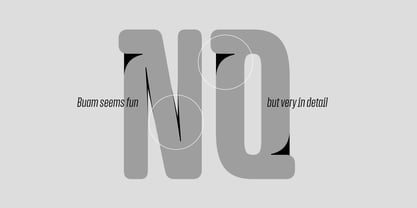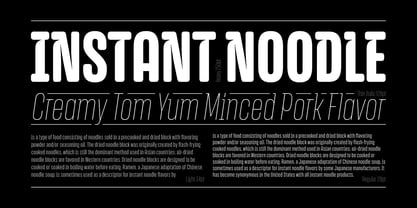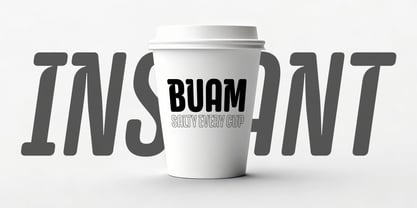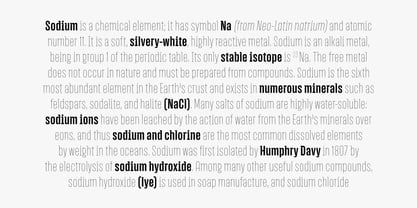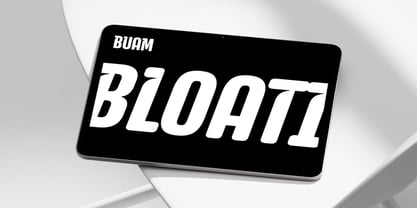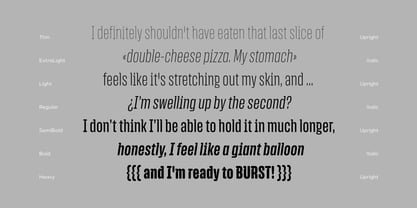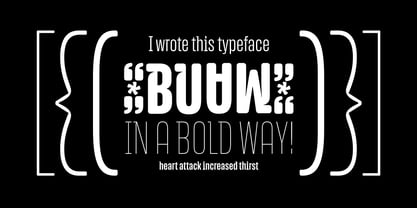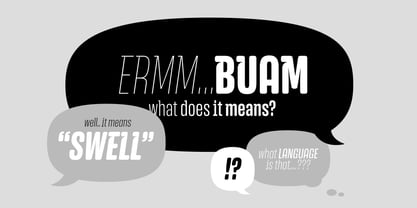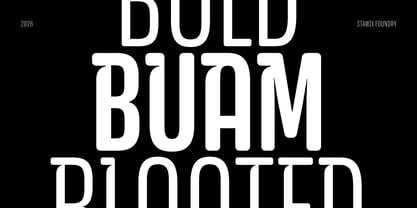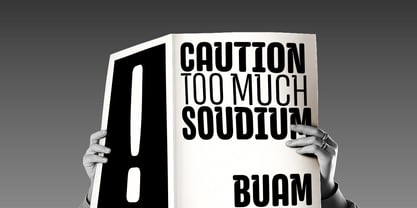
Buam
by Stawix
Meet Buam, the latest display font from Stawix Foundry. Its name comes from the Thai term for “swelling” caused by an overflow of energy. Buam brings that idea into type, with forms that feel pushed to the edge—confident, expansive, and full of intent.
It’s bold and “bloated” in all the right places. The result reads clearly at large sizes and holds attention fast, whether you use it on screen or in print. Stawix Foundry also packed Buam with features to keep your workflow smooth, making it a strong choice for designers who want their typography to stand out and stay memorable.
Located in the Thonglor district of Bangkok, Stawix was founded in 2012 and named for its founder, Stawix Ruecha. The foundry has since strived to reach its three main objectives. “First, our foundry was founded in the hope of starting a movement by designing Latin fonts and Thai alphabets that are suitable, in terms of design, for both languages while providing new possibilities,” Stawix says. “Second, we aim to enhance and maintain the standards of the Thai Type Design industry with fresh ideas. And lastly, we want to continue to pass on our knowledge of type design to the next generation of designers.” Stawix made his MyFonts debut with Seravee, a modern, rounded serif with a geometric base. His foundry has since grown to include designer Kawisara Vacharaprucks and has produced bestsellers like Soin Sans and Amsi Pro, which was inspired by the century-old typeface Block Berthold Condensed. “From our point of view, what makes our foundry unique is the enthusiasm and attentiveness we have towards our clients when they suggest changes or give us comments about our work,” Stawix says. “We believe that the font and the client’s need must be in related, therefore, we are always ready to improve the quality of our font in order to get the best possible outcomes.”